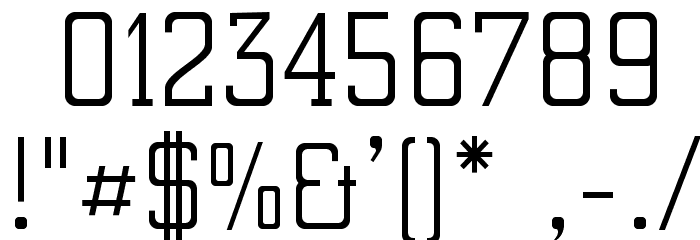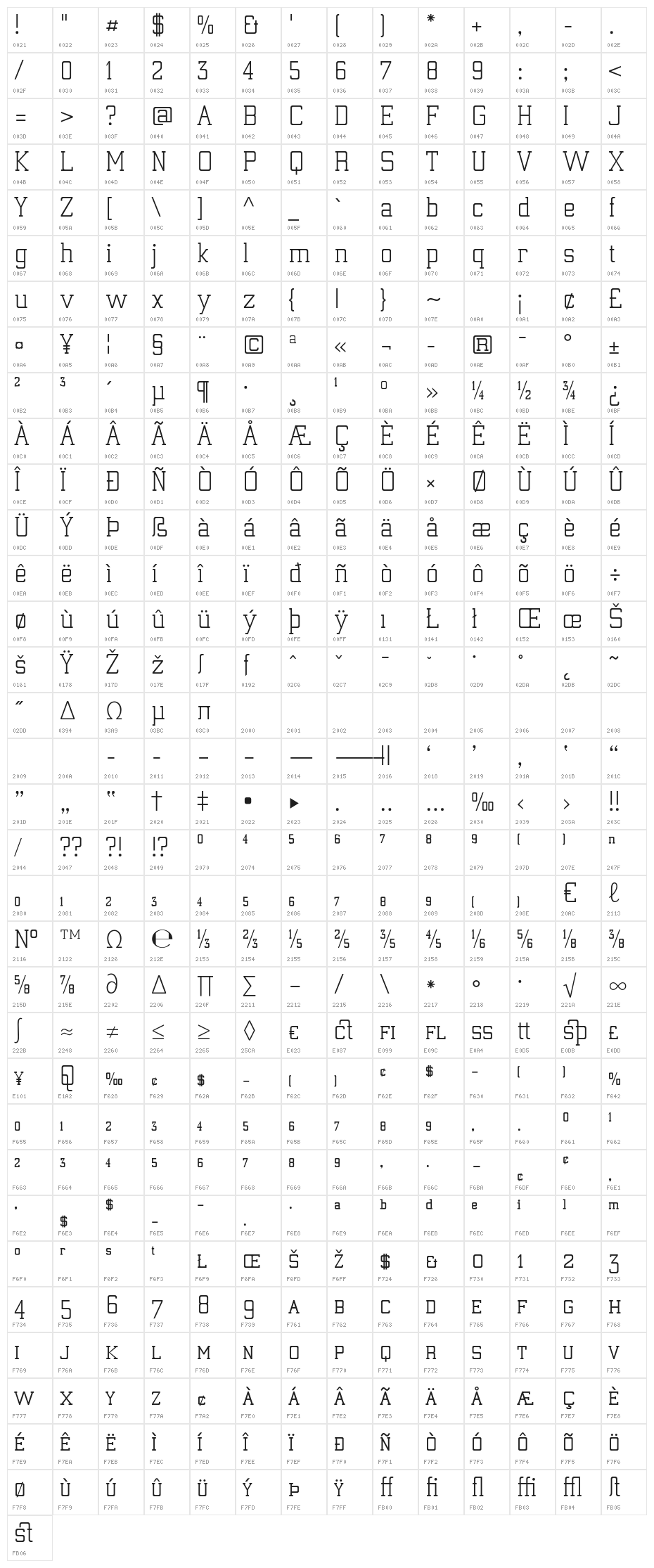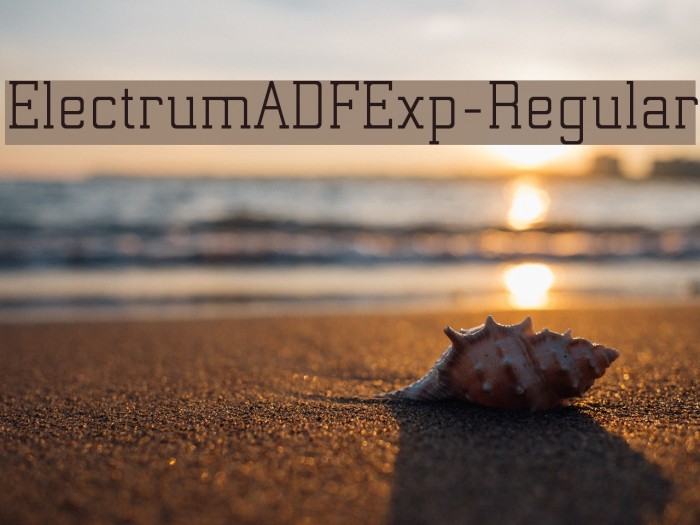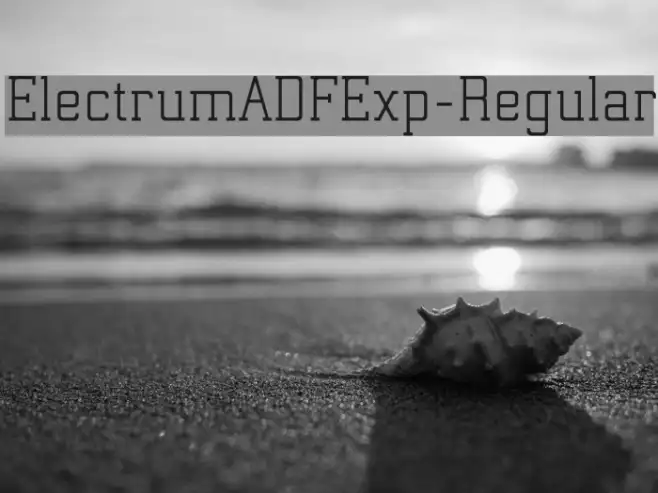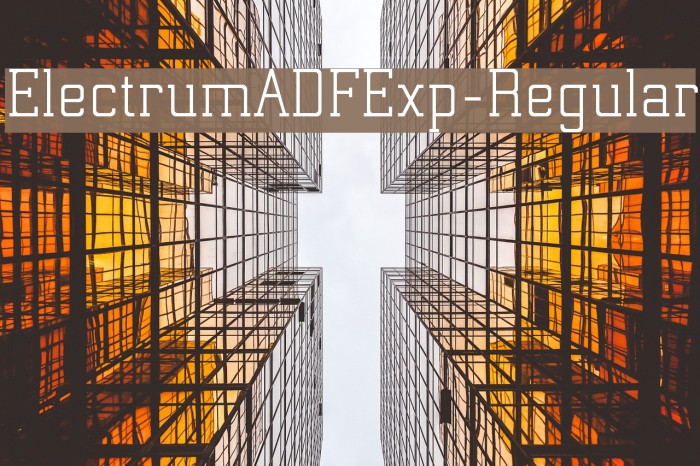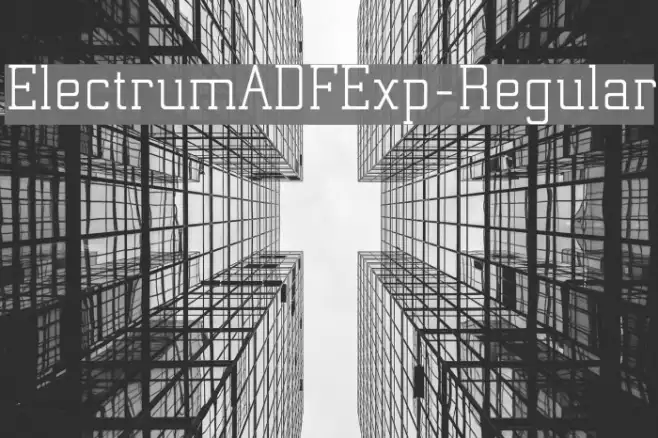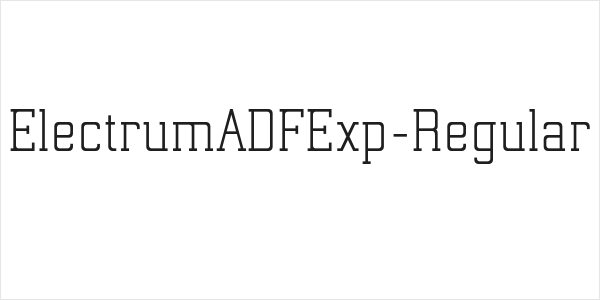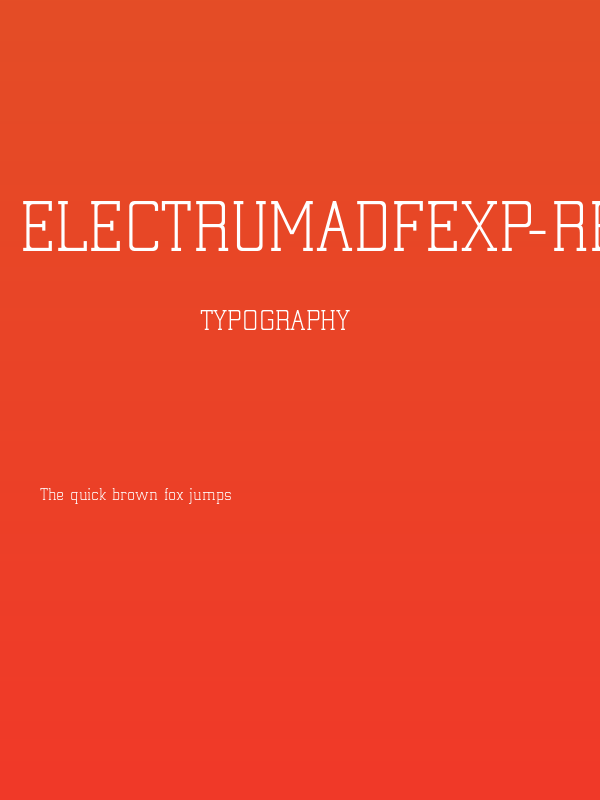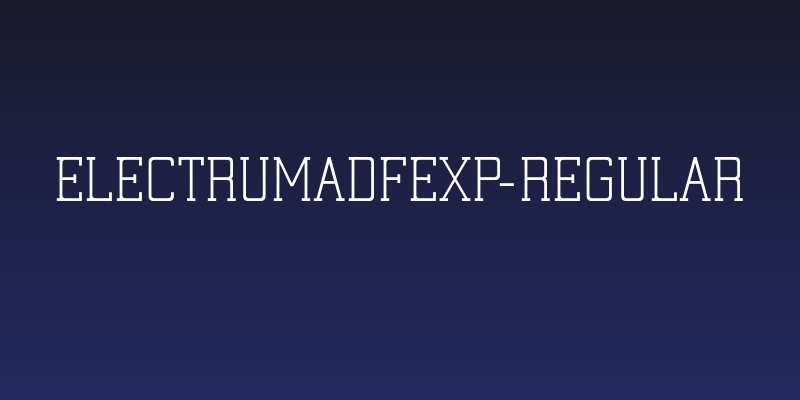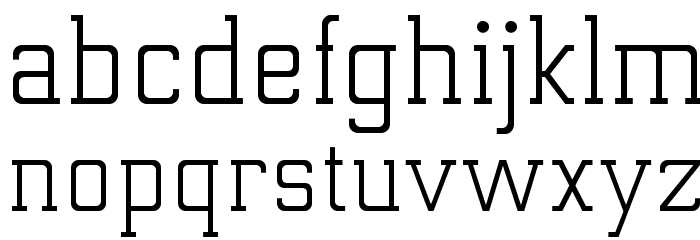
ElectrumADFExp-Regular Font
ElectrumADFExp-Regular Description
This font features a modern, geometric design with a clean and structured appearance. The characters are uniform in width, providing a monospaced feel, yet they maintain a subtle elegance with slightly rounded edges. The uppercase letters are tall and commanding, while the lowercase letters offer a balanced contrast with their more compact form. Numbers are clear and distinct, ensuring readability. Special characters are designed with precision, making them suitable for technical or digital contexts.
Use CaseHeadlines, Body text, Logos
Proposed ProjectsIdeal for coding environments, technical documentation, digital interfaces, and modern branding projects.